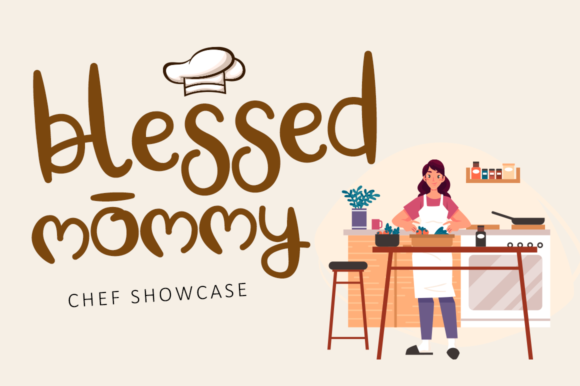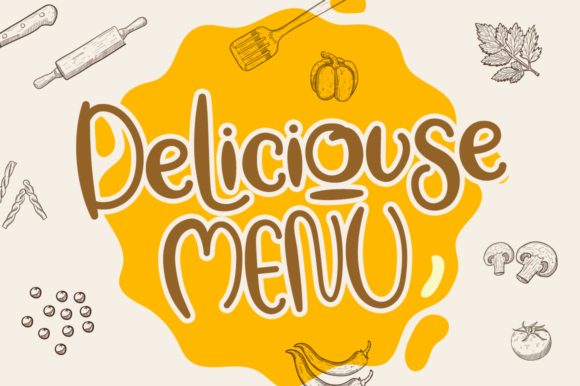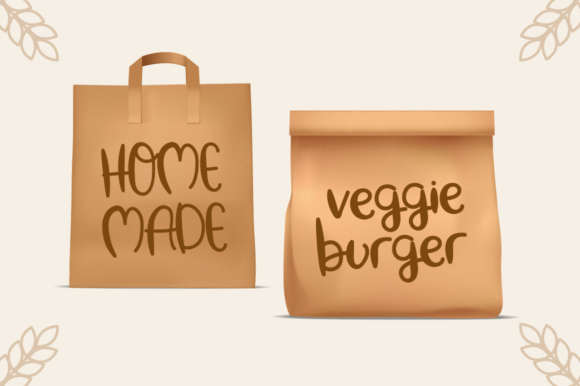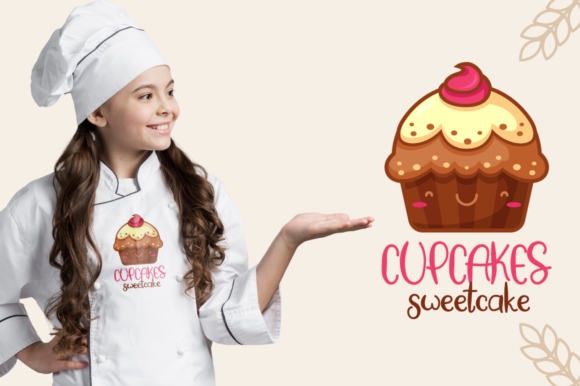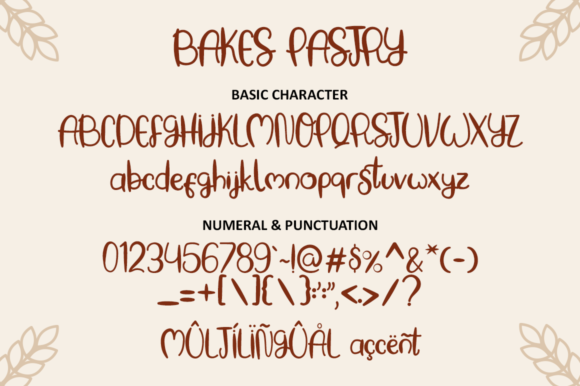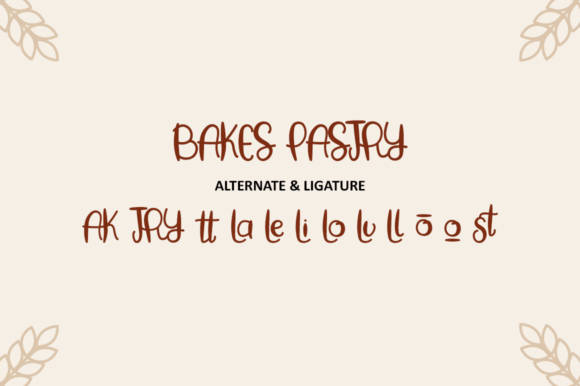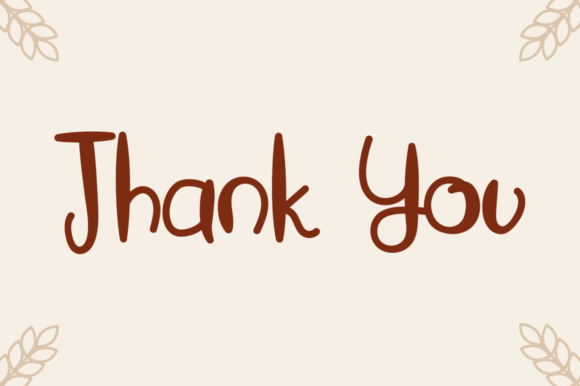
Baking Pastry Font
About Baking Pastry Font
Baking Pastry embodies fun, quirkiness and authenticity. This handwritten font is the perfect fit for all of your logos, branding, social media, and crafty DIY projects.